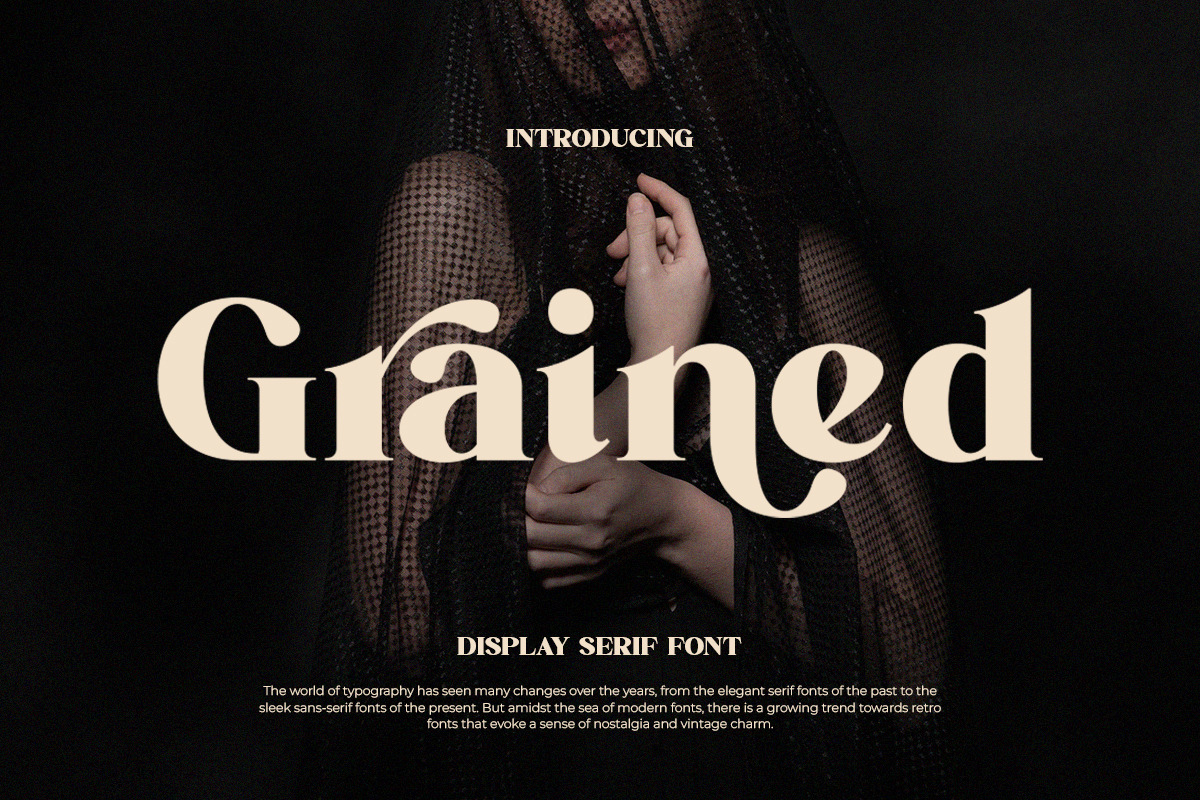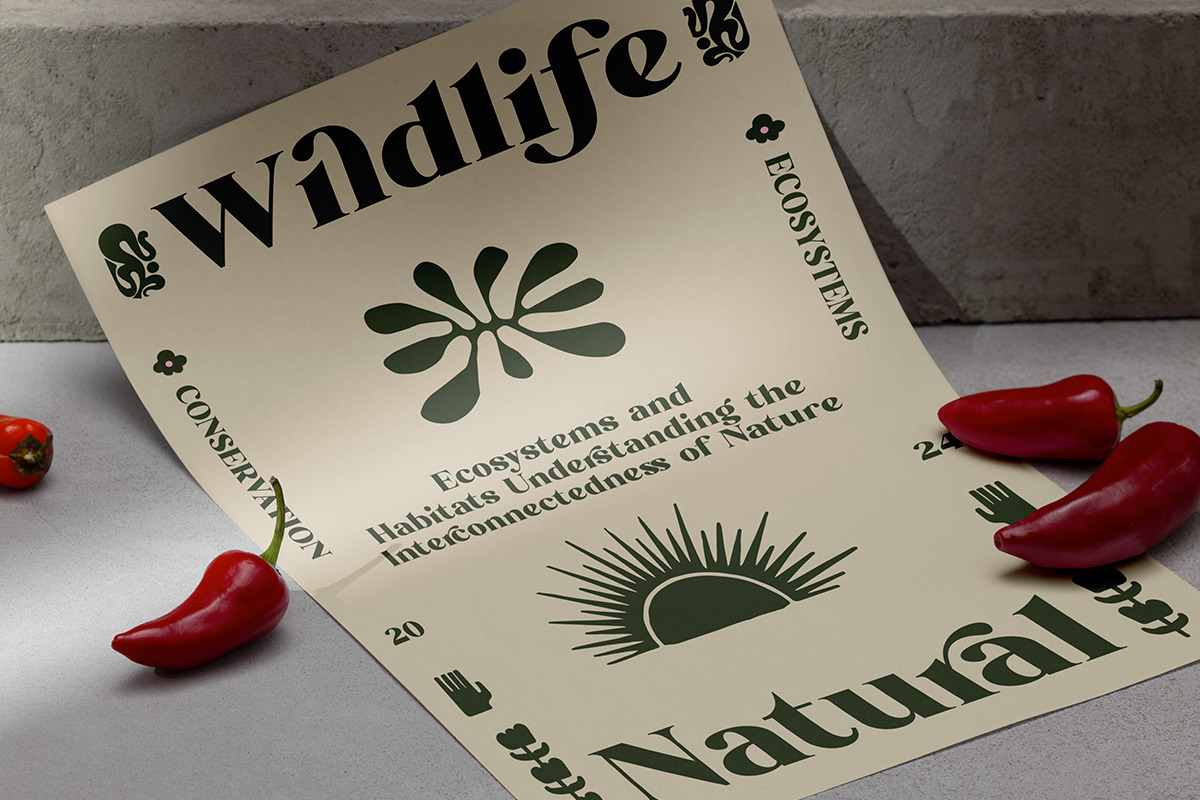
Grained Display Serif Font
Introducing the Grained Display Serif Font! This font isn't just about style—it's about making your designs pop with elegance. With its sleek alternates and graceful ligatures, Grained is perfect for all your graphic design needs. Whether you're crafting a logo, designing a poster, or creating a stunning website, this font delivers.
Ensuring compatibility across platforms. Plus, it's multilingual-friendly, so no matter which language you're working with, Grained has your back.